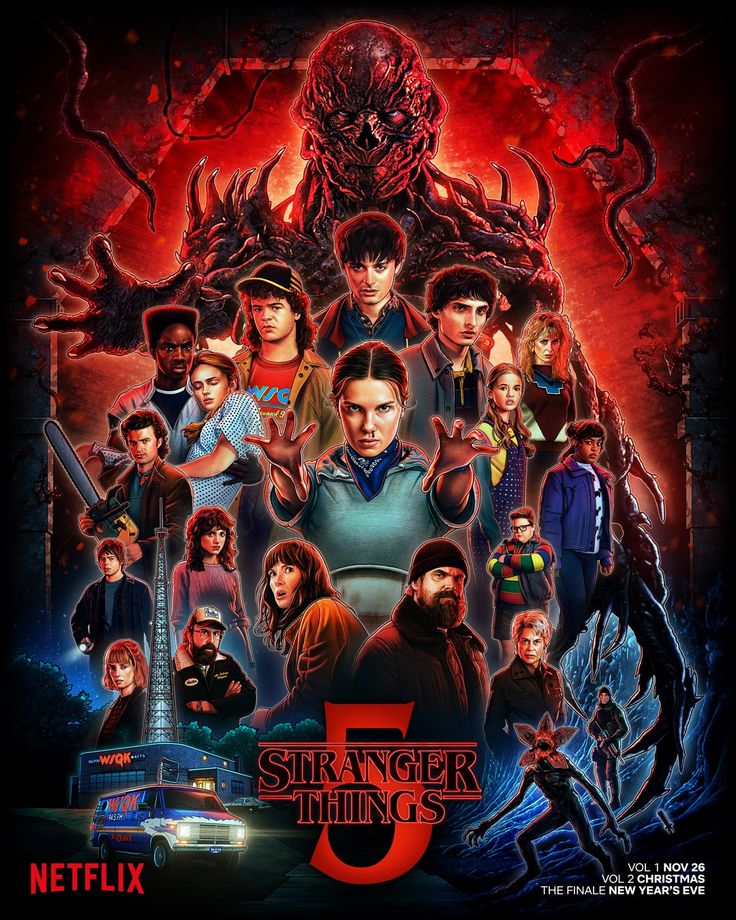
What Font Is Used in Stranger Things 5?
Stranger Things 5 is back with the same iconic ITC Benguiat font, keeping that retro 80s vibe we all love. In this article, we break down the font’s hype and drop some cool vintage font alternatives from Sensatype Studio for your next aesthetic design project.
The release of Stranger Things 5 marks the final chapter of Netflix’s legendary supernatural series. Set in the 1980s in Hawkins, Indiana, this sci-fi/horror show doesn’t just win hearts with its characters and story, but also with its iconic typography. The “Stranger Things” title font has become a pop culture symbol on its own, inspiring thousands of posters, merch designs, and retro-themed visuals.
If you’re into design, you’ve probably noticed the bold, dramatic font used in the title. This article talks about the ongoing discussion around the Stranger Things font and highlights the charm of minimalist modern serif styling. We’ll also share some cool alternative fonts from Sensatype Studio that you can use to level up your design projects.
What Font Is Used in Stranger Things 5?
Stranger Things 5 the beginning of the end
Since Season 1, Stranger Things has consistently used ITC Benguiat, a serif font designed by Ed Benguiat in 1977. It’s a classic serif famous for its elegant, distinctive curves. Inspired by Art Nouveau, this vintage aesthetic became popular again thanks to its use in the Stranger Things logo. Released by the International Typeface Corporation (ITC), Benguiat remains a timeless choice for design projects that want a mix of elegance and nostalgia.
This font isn’t just a visual element, it's part of the series’ identity. For Stranger Things Season 5, Netflix still sticks with the same main font, keeping the visual branding strong and instantly recognizable around the world. That’s one of the reasons Stranger Things works so well visually. It fits the 80s nostalgia theme, it stays consistent across seasons and merchandise, it’s instantly recognizable even without the full logo. Just like the Harry Potter or Star Wars typography, Stranger Things has built its own typographic legacy.
9 Freemium Font Alternative Stranger Things 5
If you’re looking for fonts that capture the essence of the Stranger Things logo but still feel unique, here are some fantastic alternatives from Sensatype Studio:
1. Tanger-Horror Mystery Gothic Font
Tanger - Horror Mystery gothic Font | Stranger Things 5 Font Alternative
An eerie gothic typeface crafted for chilling titles, dark branding, and mysterious storytelling.
TANGER is a horror mystery gothic font designed to evoke fear, suspense, and shadowy atmospheres. With its sharp gothic strokes, dramatic curves, and vintage terror-inspired forms, TANGER brings an ominous tone to any project that needs a touch of darkness.
Tanger Font Alternative Stranger Things 5
Perfect for horror movie posters, mystery book covers, haunted house branding, paranormal podcasts, and eerie social media graphics, TANGER delivers a chilling aesthetic that instantly sets the mood. Each letter is crafted to feel unsettling yet captivating, making it ideal for storytelling that leans into the unknown.
Whether your project is supernatural, thriller-themed, or steeped in classic gothic style, TANGER offers the striking identity needed to pull audiences into a world of suspense and intrigue.
2. Vintage-Retro Serif Font
Vintage - Retro Serif Font
Vintage is a retro-style serif font packed with cool variations. Perfect for branding, logo, and invitations. It gives your design that classy, elegant, and totally unique vibe.
3. Stylish Serif-Ligature Retro Vintage Serif
Stylish Serif - Ligature Retro Vintage Serif
A fresh serif font made to deliver gorgeous vintage energy. Ideal for headlines, typography, and branding projects that want to look extra stunning.
4. Dragon Serif-Modern Vintage Serif Font
Dragon Serif - Modern Vintage Serif Font
A vintage inspired font with unique ligatures for brands that want to stand out. Great for designs that need a bold retro twist.
5. Regards-Modern Retro Serif
Regards - Modern Retro Serif
Regards is a retro-modern serif font that's super flexible, playful, and elegant. Perfect for branding, logos, packaging, social media, and invitations thanks to its high readability.
6. Ruben-Display Vintage Retro Serif
Ruben - Display Vintage Retro Serif
Ruben is a vintage serif display font with tons of alternate characters for creating unique shapes. Great for logos, branding, packaging, and visual projects that want a modern-retro look that’s still easy to read.
Stranger Things 5 proves once again that strong visual identity isn’t just about story and characters, it’s also about consistent, emotional typography. At the same time, modern design needs more flexibility and uniqueness, especially for brands and creatives who want their visuals to stand out. If you love the Stranger Things aesthetic but want to bring your own twist to your design projects, Sensatype’s font collection is a great place to start. With the right font, you’re not just making your design look pretty, you're creating a visual experience people will remember.